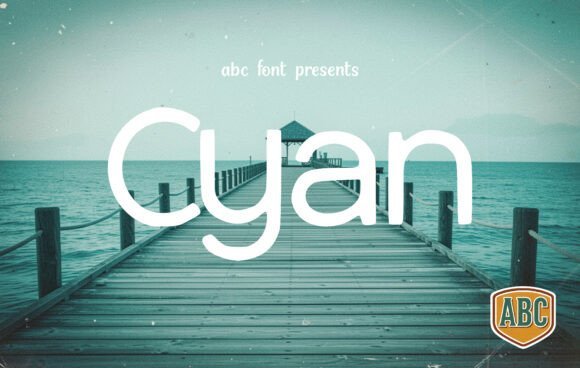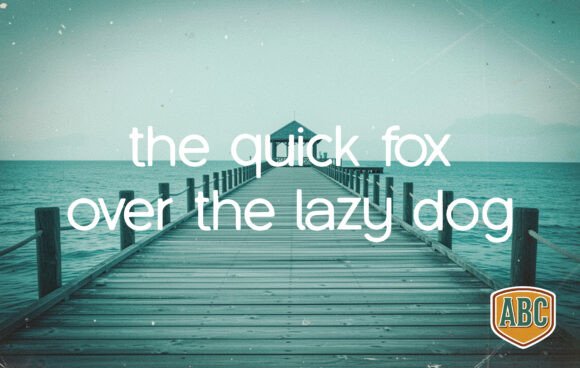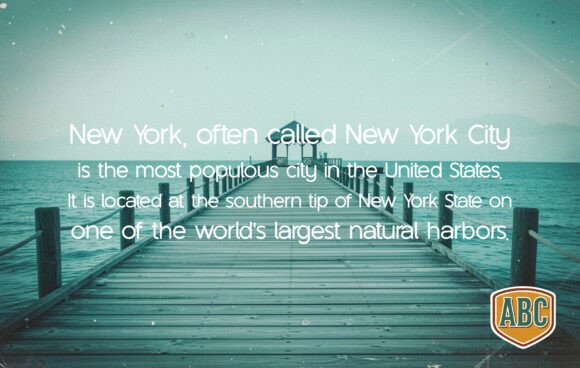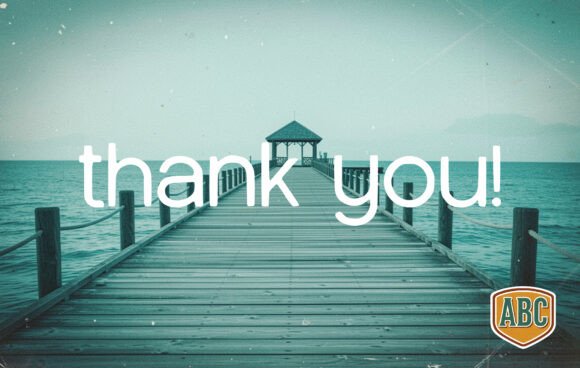
Discover the Timeless Elegance of a Modern Classic
Have you ever been browsing through a sleek tech website or a high-end lifestyle magazine, and suddenly you’re struck by the simplicity and sophistication of the typography? That’s the magic of well-designed fonts, and it’s a feeling that’s hard to forget. For designers, finding the perfect font can be a game-changer – it’s the difference between a project that’s polished and professional, and one that’s just average.
Enter the Cyan Font, a modern sans serif font that embodies the perfect blend of minimalism and elegance. With its perfectly circular geometric forms and thin, uniform strokes, Cyan is designed to provide maximum clarity and open space – making it an ideal choice for high-end digital interfaces and sophisticated print media.
Cyan Font Key Features
- Font Family: A sans-serif font family designed to be highly legible and readable in digital formats.
- Unique Characteristics: Features a unique blend of modern and minimalist design elements, with a focus on readability and aesthetic appeal.
- Font Weight: Available in Light, Regular, Medium, Bold, and Extra Bold weights for added flexibility in design and typography.
Cyan Font Review
First off, let me say that the Cyan Font has some great qualities that make it a solid choice for certain projects ✨. The font is highly legible, even at smaller sizes, and the clear, crisp lines give it a modern feel that’s perfect for tech-related designs. The font’s versatility is also a plus, working well in both body text and headings.
- High legibility even at smaller sizes
- Modern, crisp feel perfect for tech-related designs
- Versatile, working well in both body text and headings
However, there are some limitations to the Cyan Font that may make it less suitable for certain projects ⚠️. For one, the font can come across as a bit cold and sterile, which may not be the best choice for designs that need a warmer, more inviting feel. Additionally, the font’s limited character set can make it difficult to use for languages that require a wider range of characters.
- Can come across as cold and sterile
- Limited character set may be a problem for certain languages
Overall, the Cyan Font is a solid choice for projects that require a modern, tech-inspired feel. While it may not be the best choice for every design, it’s definitely worth considering for certain types of projects.
Some tips for getting the most out of the cyan font include:
– Using it for highlight text or headings to draw attention.
– Pairing it with other bright colors to create a visually appealing design.
– Using it in digital designs, such as website headers or social media graphics, where bright colors are often used.
Some common use cases for the cyan font include:
– Designing a website or app for a tech company.
– Creating a flyer or brochure for a new product launch.
– Designing a social media graphic for a health and wellness brand.